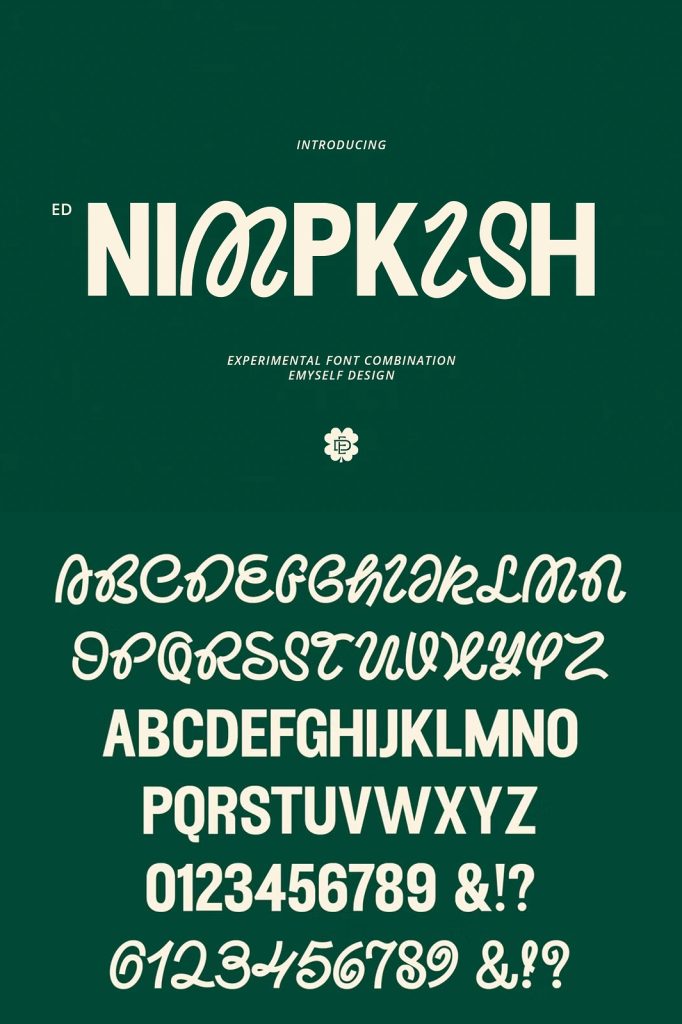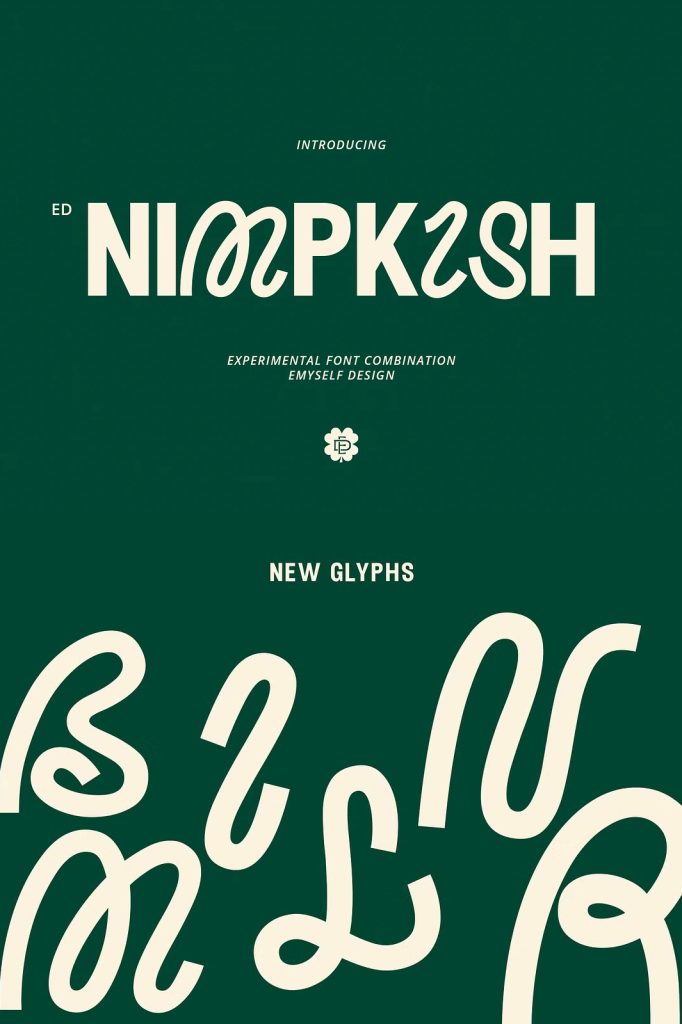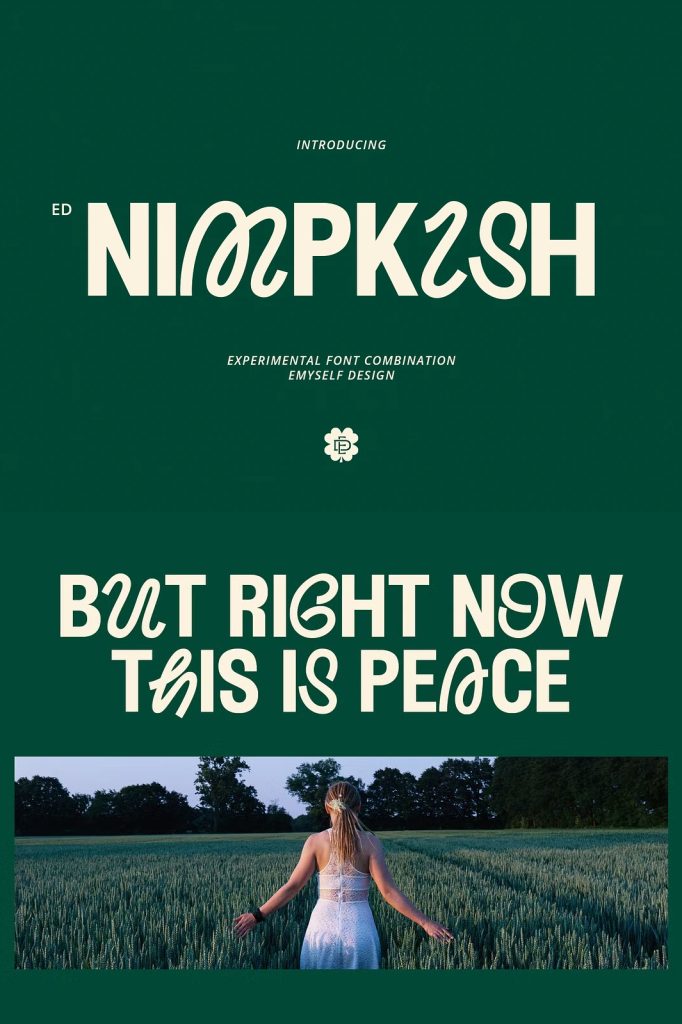
ED Nimpkish – Combination TypefacecoreografyJune 11, 2025Fonts ED Nimpkish is an experimental combination font. include 2 fonts that have a very different style and appearance Download